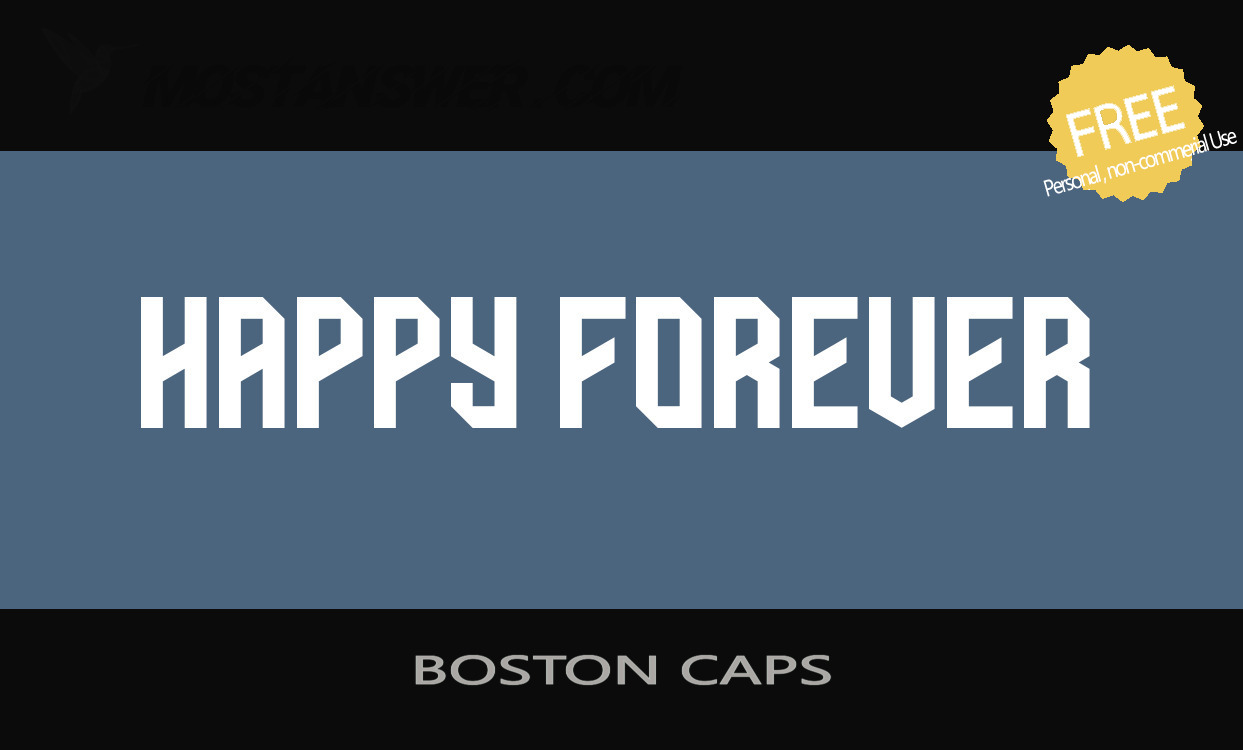
50+ Best Baseball Fonts (FREE / Premium) 2024 Hyperpix Boston Caps Font Free Download ️ this font has been downloaded 1,000+ times. Boston by eotype type foundry. Download and install the boston caps font for free from ffonts.net. The boston caps font is good for titles as it is capitalized. Download boston caps regular font | 2 styles free font. You can download the boston caps font to your. Boston caps font family designed. Boston Caps Font Free Download.
Embroidery Design for Boston Cap Etsy Boston Caps Font Free Download The boston caps font is good for titles as it is capitalized. Thousands of designers (famous or not) use the image font detection system to find a font or similar free fonts from an image. You can download the boston caps font to your. Free download of boston caps font. ️ this font has been downloaded 1,000+ times. Boston caps. Boston Caps Font Free Download.
Boston Angel Font di Great Studio · Creative Fabrica Boston Caps Font Free Download Click now to create a custom. The boston caps font is good for titles as it is capitalized. Free download of boston caps font. Download boston caps regular font | 2 styles free font. Boston by eotype type foundry. Thousands of designers (famous or not) use the image font detection system to find a font or similar free fonts from. Boston Caps Font Free Download.
Boston Traffic Font Download Fonts4Free Boston Caps Font Free Download Click now to create a custom. Boston caps font family designed by aptumi studio has a total of 1 different styles. ️ this font has been downloaded 1,000+ times. Free download of boston caps font. Download boston caps regular font | 2 styles free font. You can download the boston caps font to your. The boston caps font is good. Boston Caps Font Free Download.